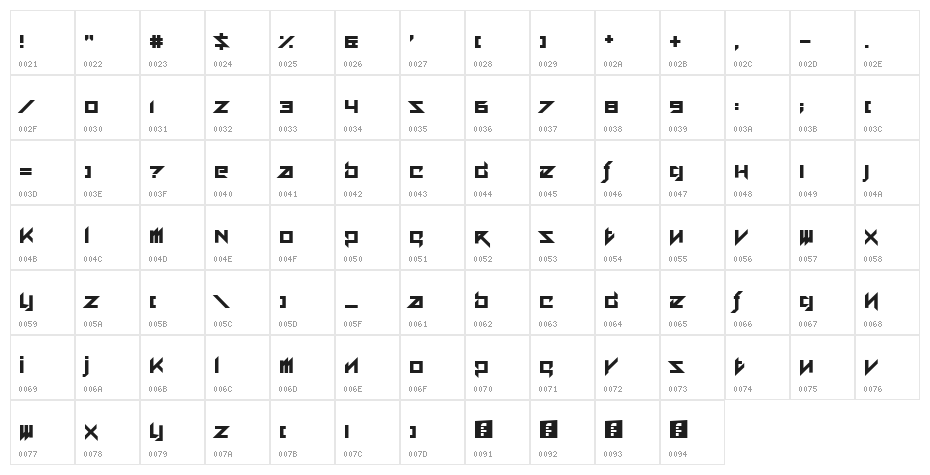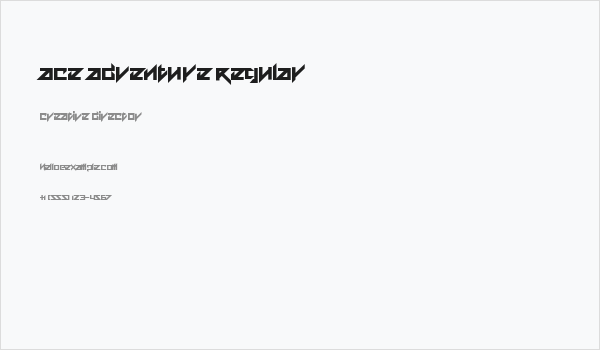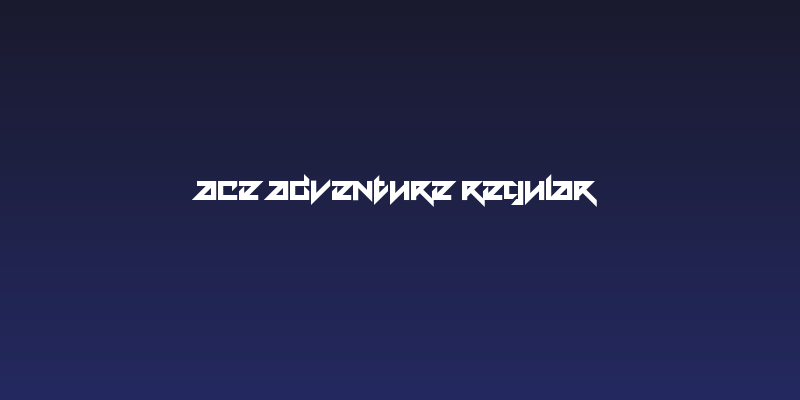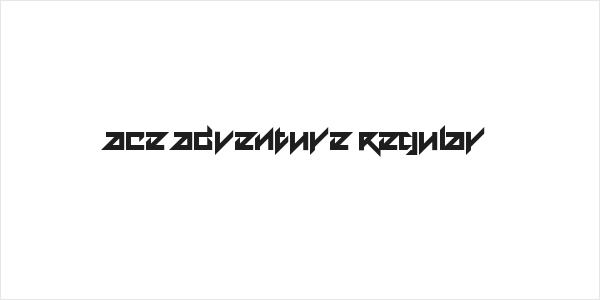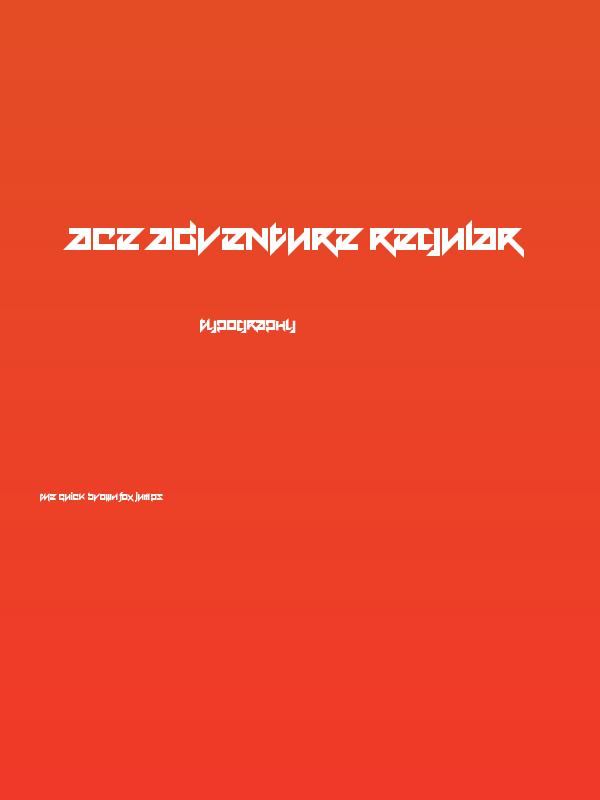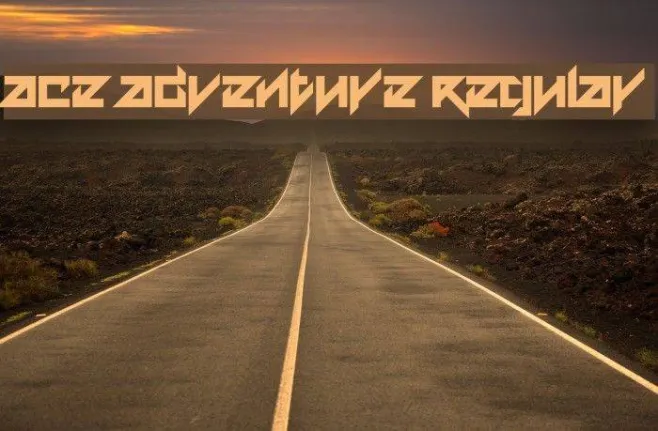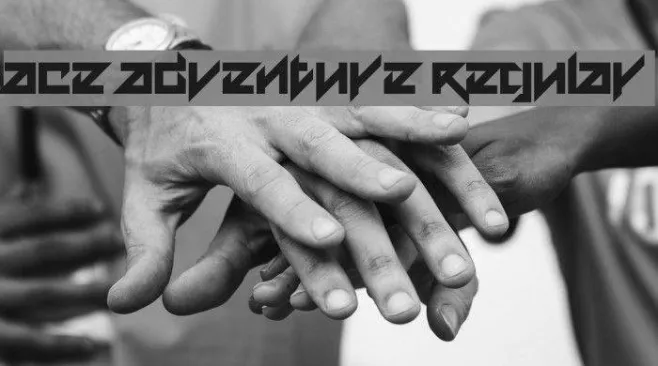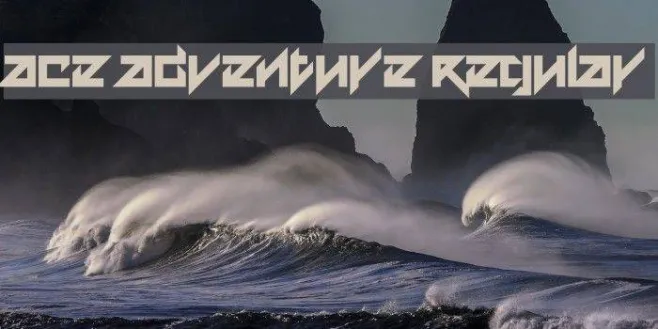
Ace Adventure Regular Font
Ace Adventure Regular Description
This font features a bold, geometric design with sharp angles and a futuristic aesthetic. The characters are constructed with straight lines and pointed edges, giving it a dynamic and aggressive look. The uppercase and lowercase letters maintain a consistent style, with the lowercase mirroring the uppercase in form. Numbers and special characters follow the same angular theme, ensuring uniformity across all glyphs. The design is reminiscent of digital or sci-fi themes, making it suitable for projects that require a modern and edgy appearance.
| Proposed Projects | Ideal for video game titles, sci-fi movie posters, tech branding, and digital artwork. |